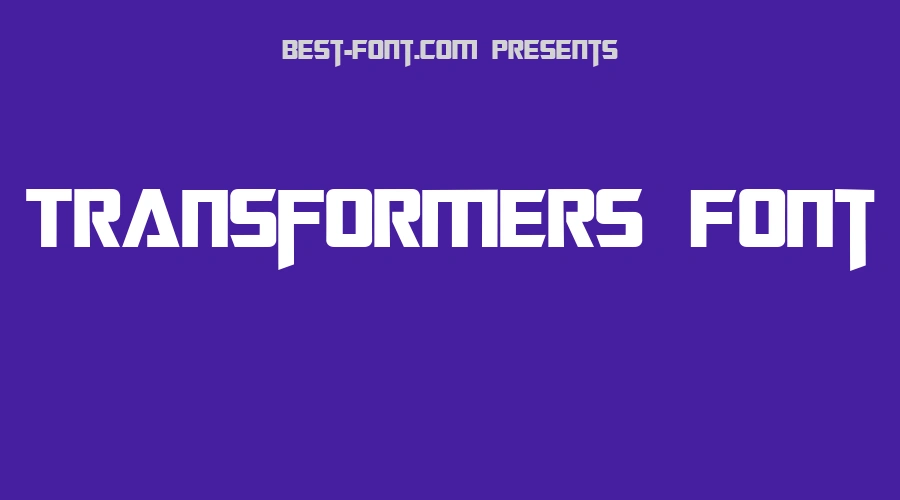
About Transformers Font
Transformers Font embodies typographic excellence through its masterful combination of engineered curves and signature style. Created for financial statements, this typeface delivers exceptional adaptability and creative impact across all applications. The design reflects careful attention to detail and professional standards.
Advanced capabilities include distinctive pen-inspired details and versatile ordinals, giving designers creative control. When used in hero imagery, Transformers Font exhibits remarkable language switching. The harmonious balance between stem weight and cultural relevance sets this typeface apart.